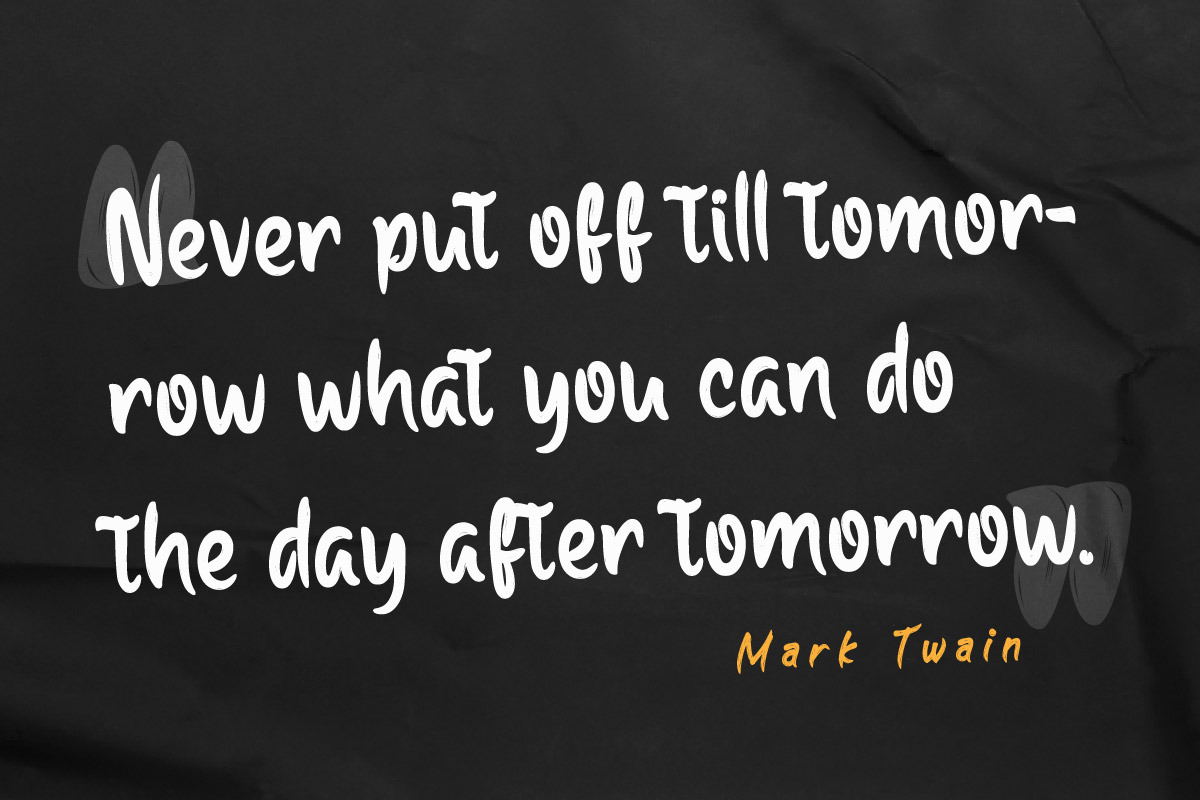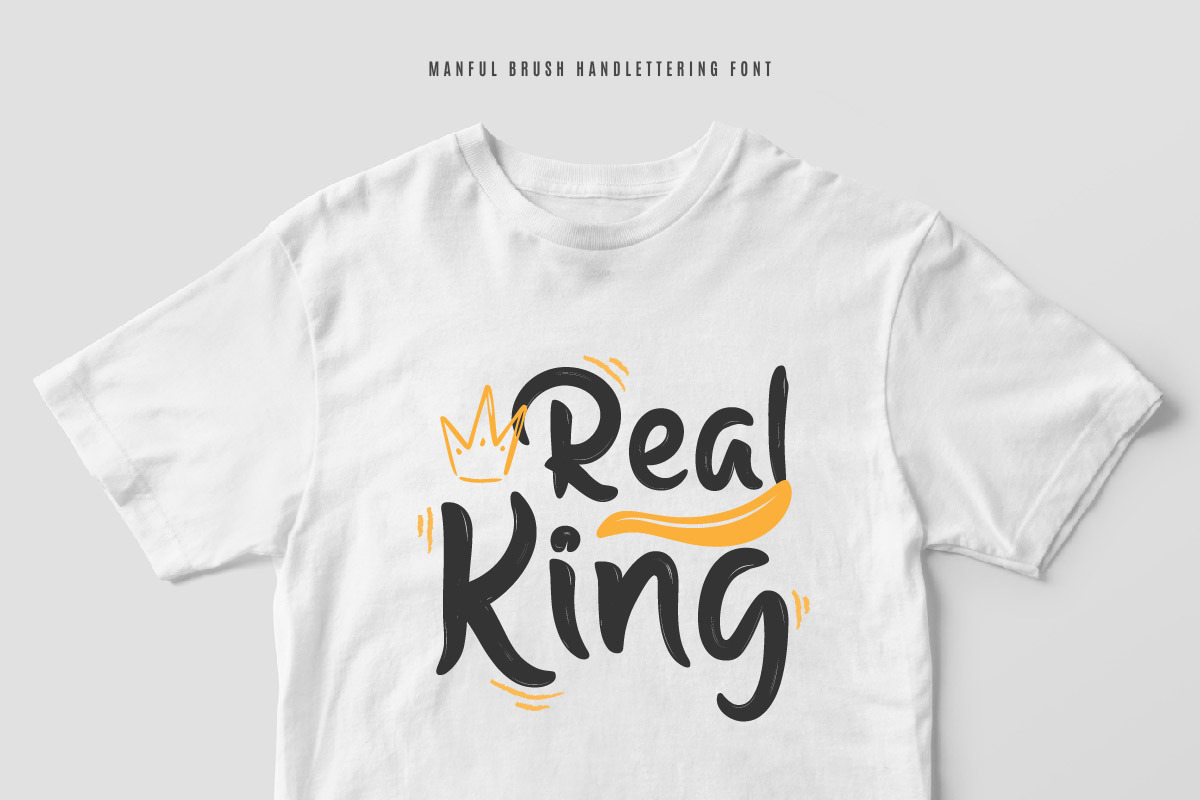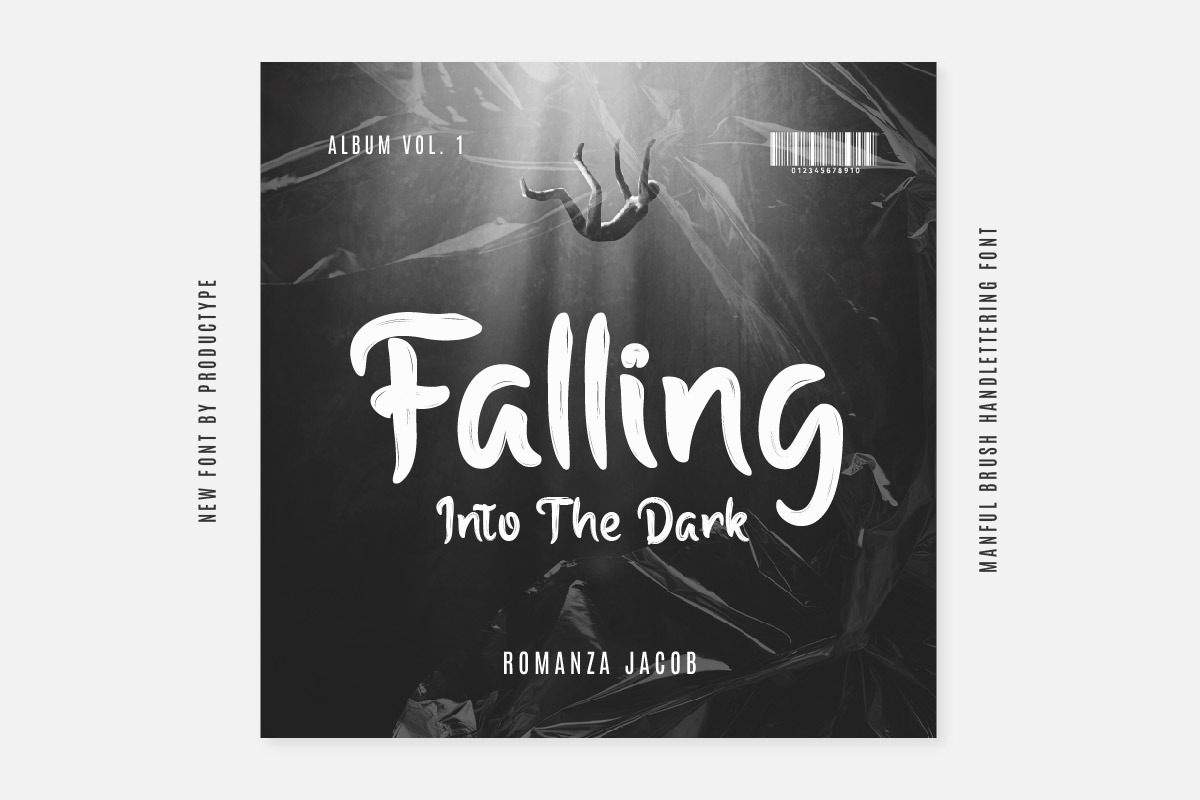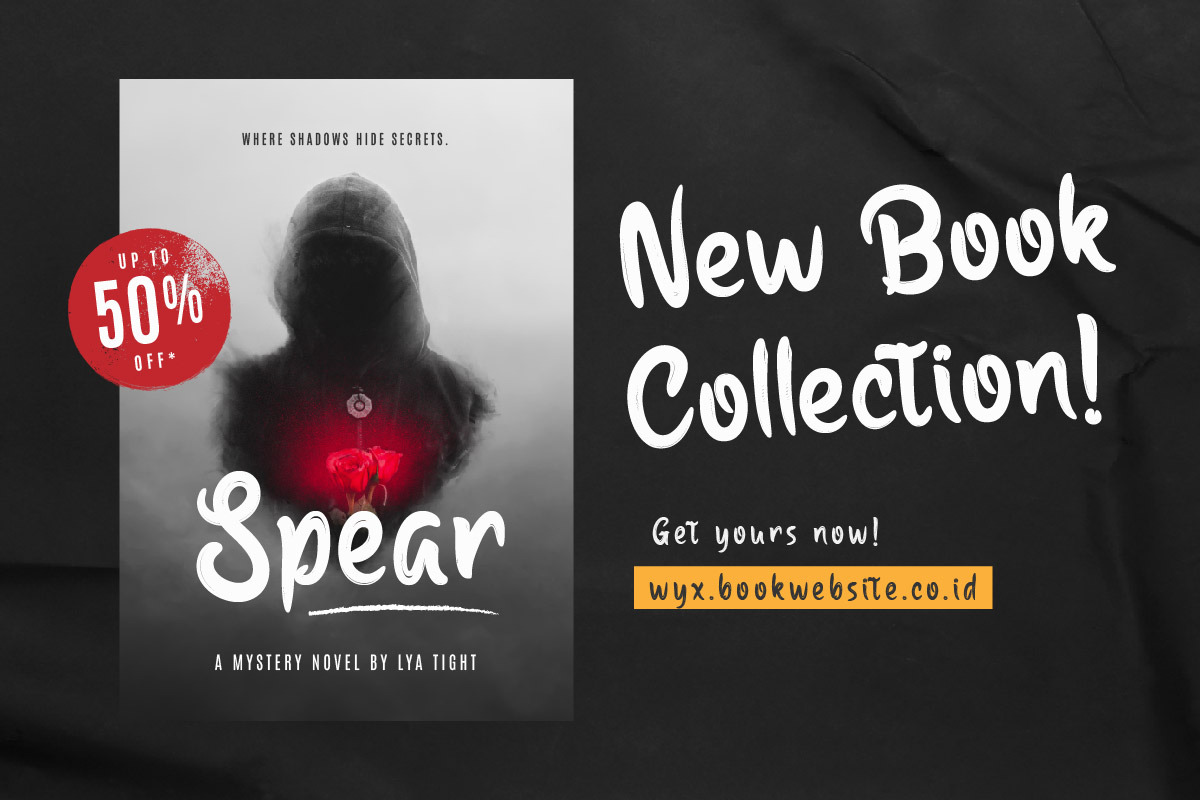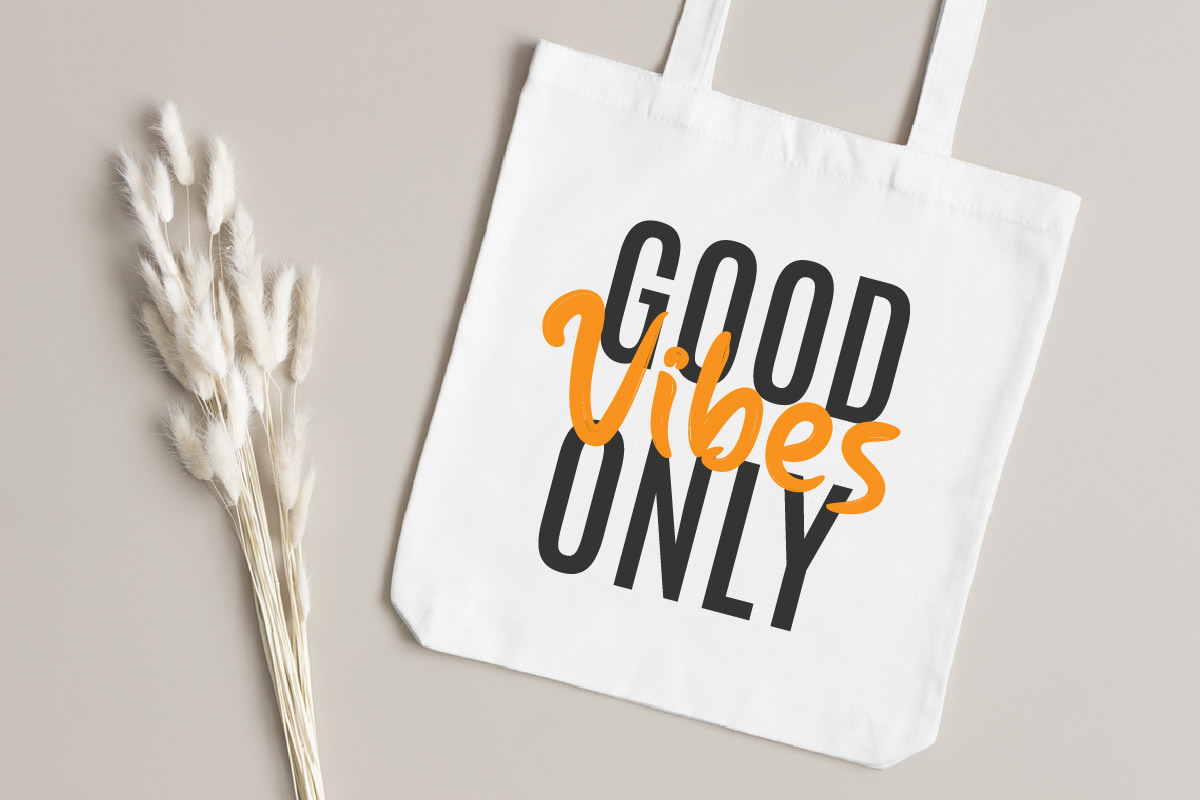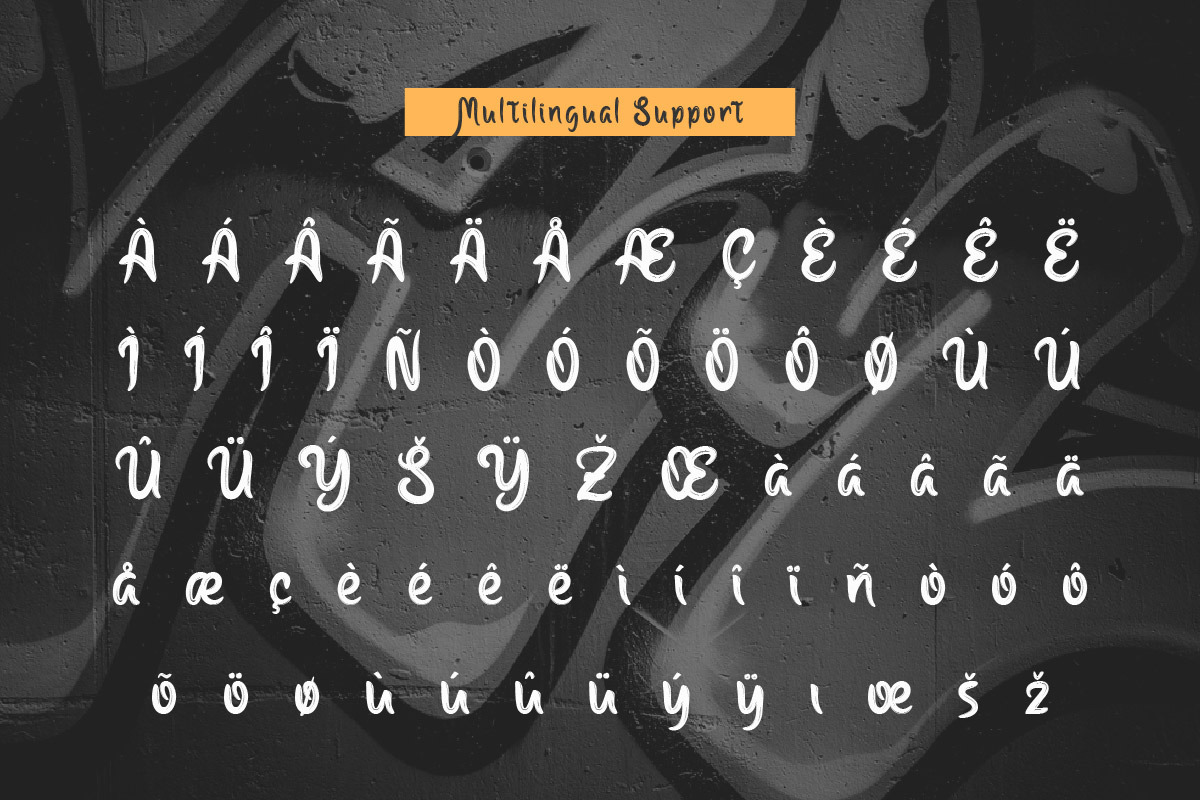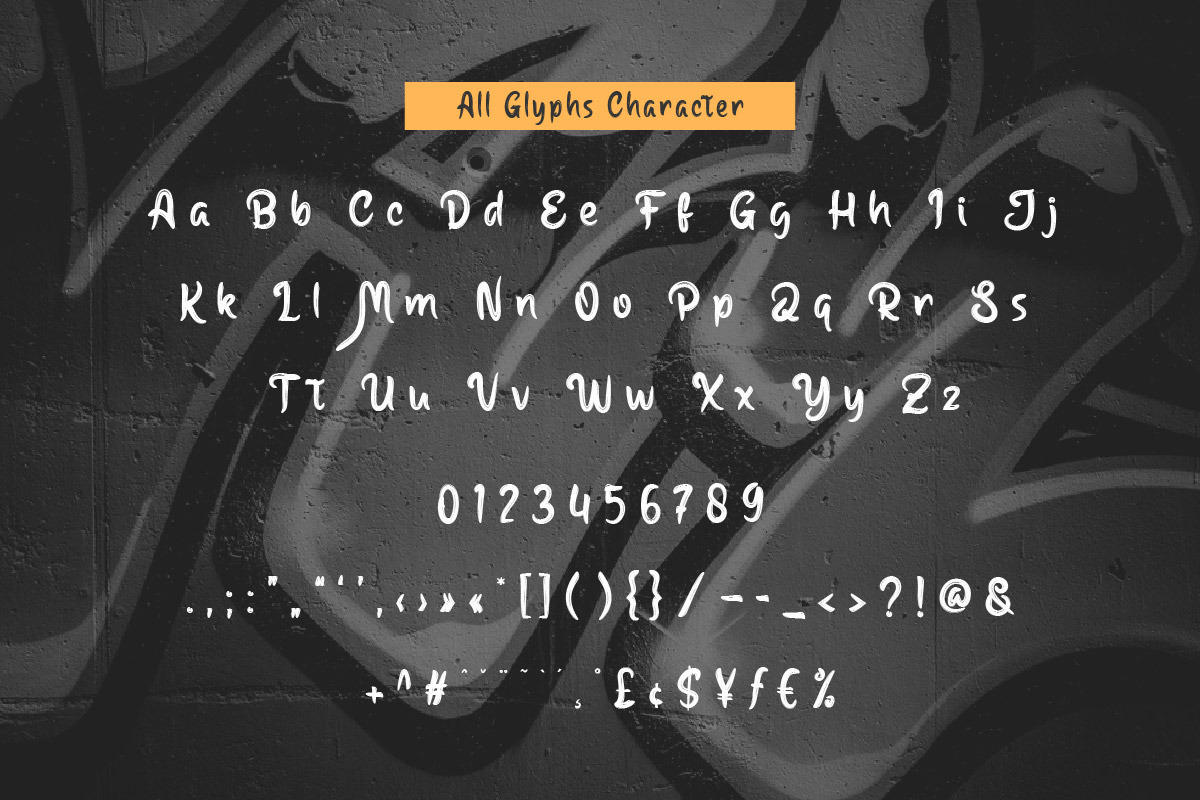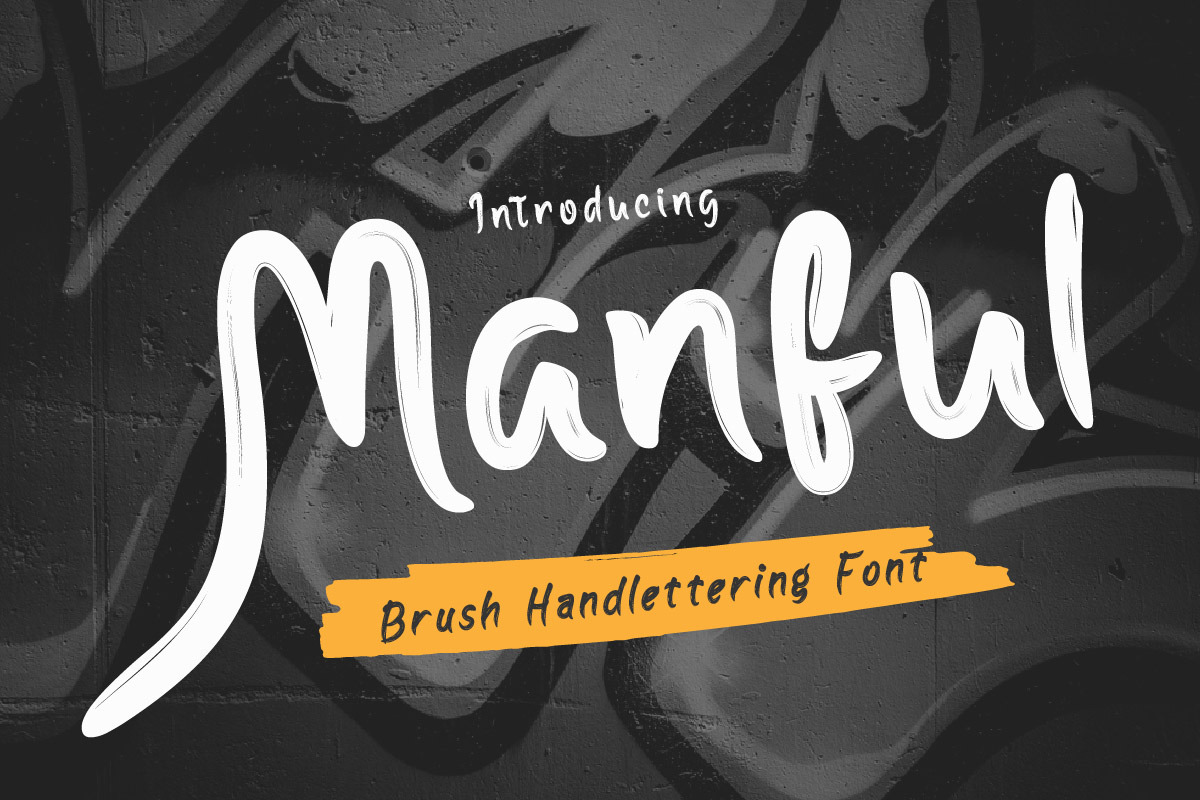
Manful - Brush Handwritten Font
Manful is a brush handwritten font that combines strength and style. Its bold, dynamic characters are perfect for designs that require a touch of power and confidence. Whether you’re creating a logo for a fitness brand or a headline for a motivational blog, Manful adds a touch of strength that is sure to captivate your audience.